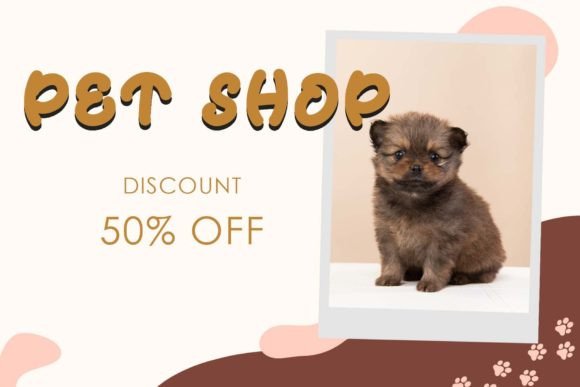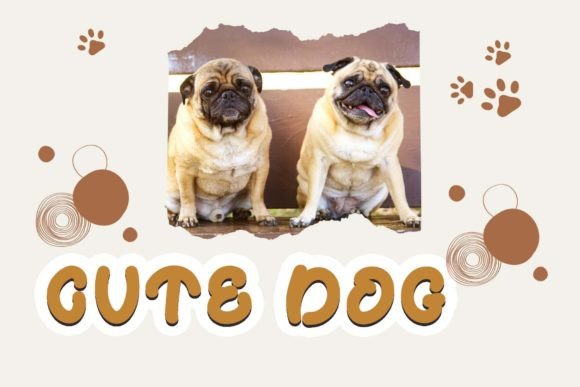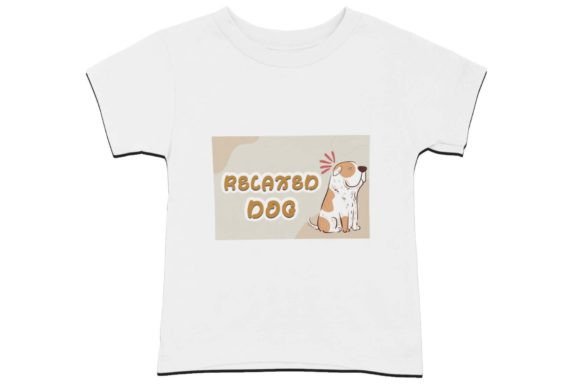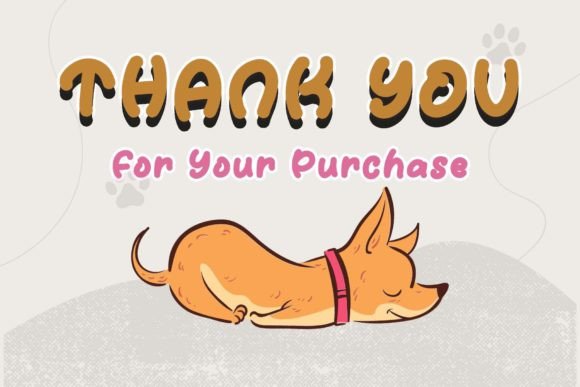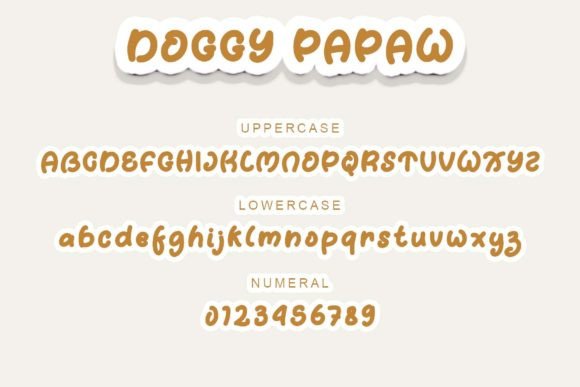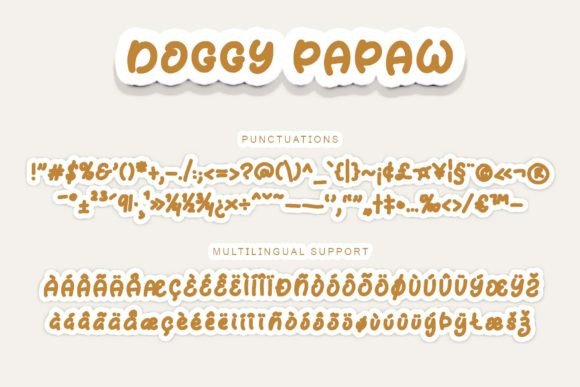
Introduction to Doggy Papaw Font
“Doggy Papaw” is a unique cute display font.
This font is equipped with uppercase, lowercase, numerals, punctuations and multilingual support Very suitable for summer, animal fonts, cats, dogs, cute banners, branding, posters, prints, logos, stickers, t-shirts, mugs, tumblers and others.
Key Features of Doggy Papaw Font